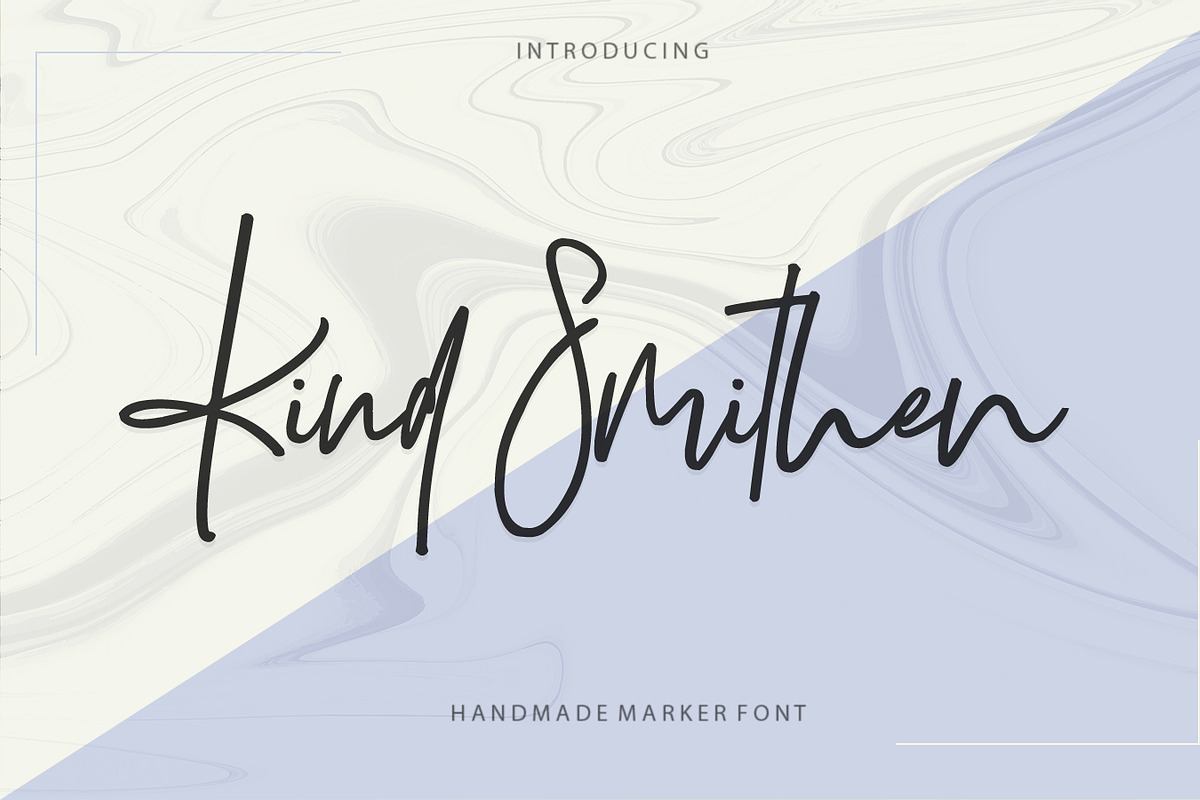
Kind Smithen Font is perfect for artisanal craft branding, handmade product labels, traditional workshop signage, vintage blacksmith materials, rustic business communications, heritage craft promotions, authentic maker branding, handcrafted furniture labels, traditional artisan projects, craft fair graphics, workshop education materials, and genuine craftsman communications.
Kind Smithen Font is exciting because it captures the authentic spirit and gentle craftsmanship of traditional smithing through its carefully forged letterforms that embody the patience, skill, and human warmth that defines artisanal metalworking and handcrafted creation. This remarkable typeface features sturdy character construction with subtle handcrafted details that reflect the honest labor and time-honored traditions of skilled craftspeople. The font's artisanal aesthetic creates deep emotional connections with audiences who appreciate authentic craftsmanship, traditional skills, and the enduring value of handmade quality over mass production.
Kind Smithen Font includes comprehensive font families: Regular Craft Style, Bold Forged Weight, Light Gentle Touch, Medium Artisan Balance, Italic Flowing Craft, Condensed Workshop Format, Extended Smithy Width, Handcrafted Texture Version, Clean Traditional Alternative, and Special Craft Symbols, providing complete solutions for artisanal and traditional craft design projects that celebrate authentic craftsmanship and handmade quality.
This authentic typography solution transforms modern communications into genuine craft experiences through its artisanal aesthetic and traditional craftsmanship principles. Kind Smithen Font Free Download enables designers and craft brands to access premium artisanal typography that instantly adds authenticity, craftsmanship quality, and traditional appeal to any creative project. The font's carefully crafted elements ensure genuine artisan character while maintaining excellent readability and distinctive handmade presence.
Craft businesses, artisanal brands, and traditional workshops trust Kind Smithen Font for its ability to communicate authenticity, skilled craftsmanship, and traditional values to audiences seeking genuine handmade experiences and artisanal quality products. The typeface's sturdy construction performs beautifully across various applications, from intimate craft communications to large-scale artisanal branding campaigns. Its extensive character support includes multilingual capabilities and craft-themed design elements that enhance authentic artisan brand presentations.
The creative inspiration behind Kind Smithen Font draws from traditional blacksmithing heritage, skilled craftsperson traditions, and the universal appreciation for handmade quality that connects us to authentic human creativity and skill. This craftsmanship-focused approach creates a font that feels genuinely artisanal while maintaining contemporary relevance across different traditional contexts and handmade brand expressions.
Whether creating artisan brand identities, craft workshop materials, or traditional craftsmanship campaigns, this font delivers exceptional results that honor the legacy of skilled trades and authentic making. Download Kind Smithen Font today and discover how premium artisanal typography can transform your design projects into authentic expressions of traditional craftsmanship, handmade quality, and the gentle strength that defines the most genuine artisan communications and craft experiences.